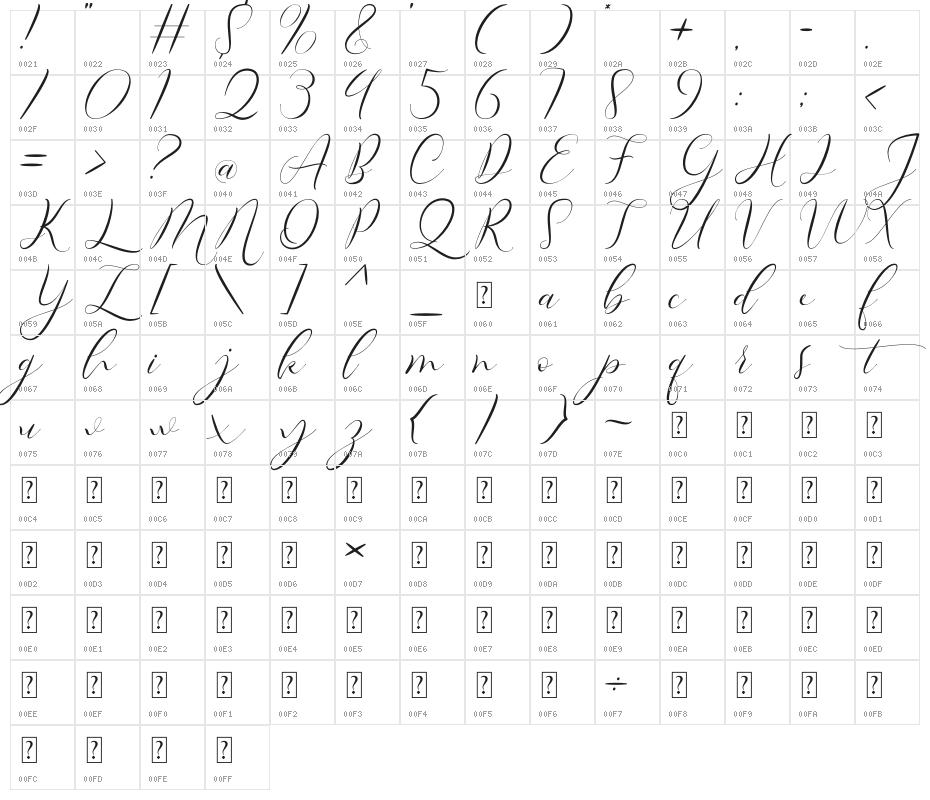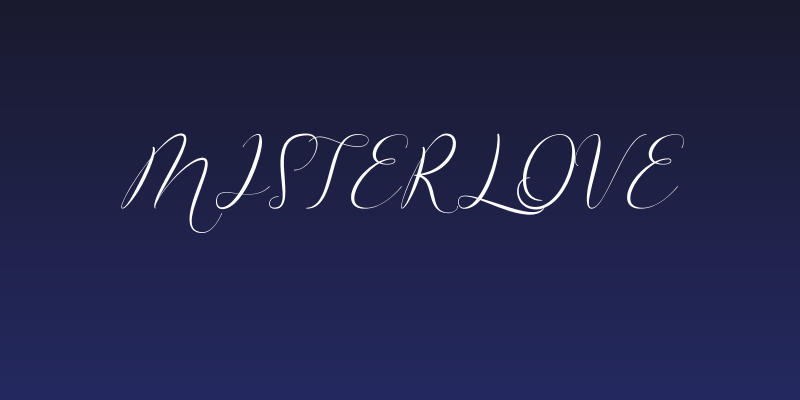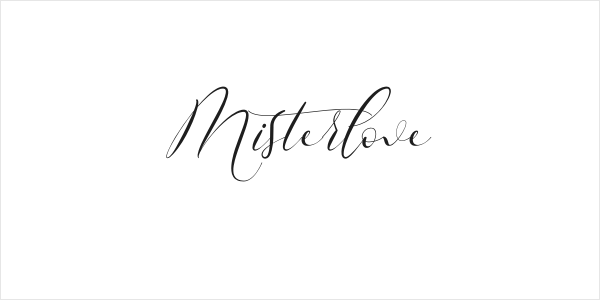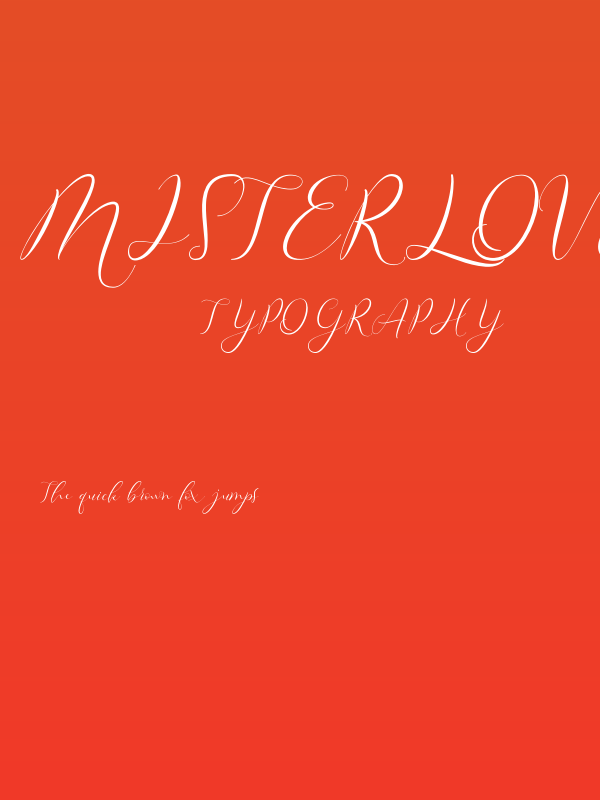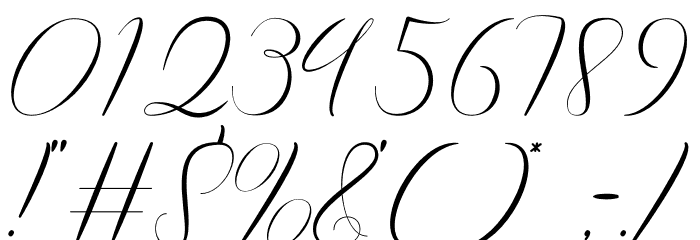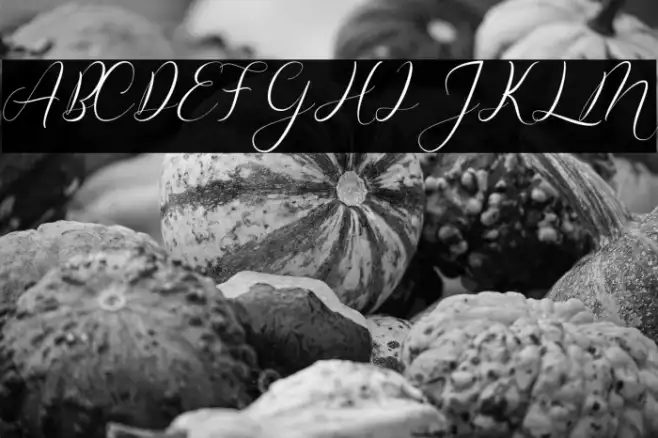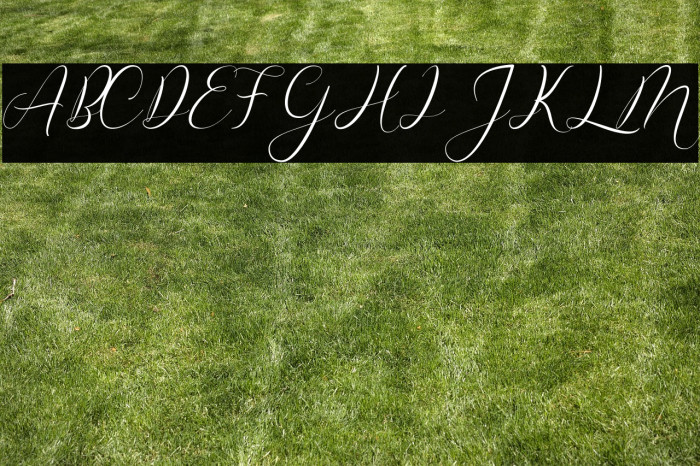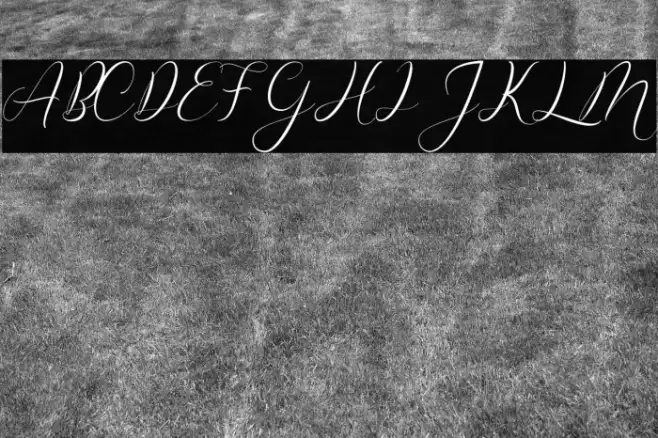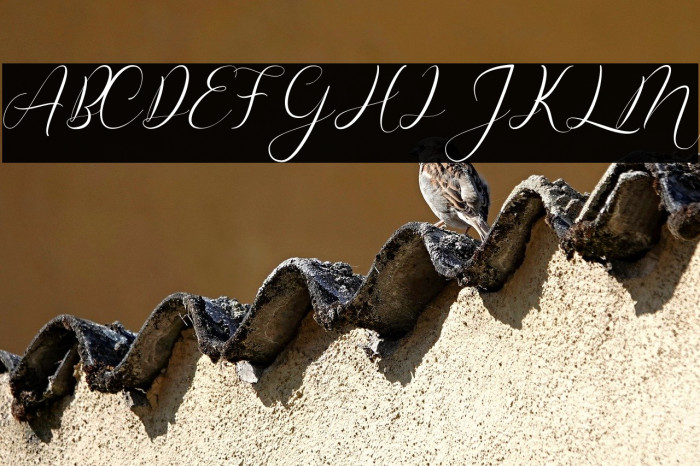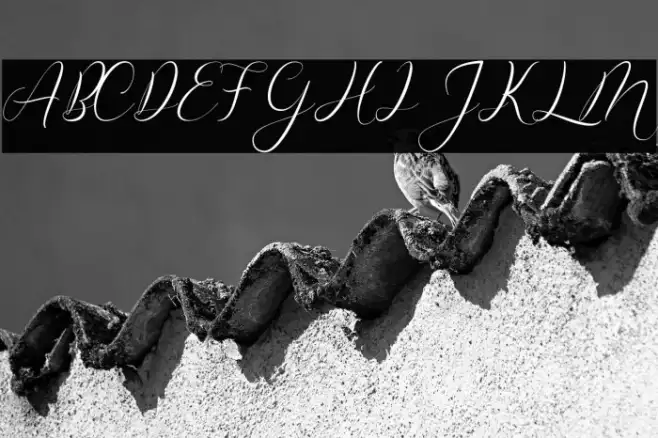
Misterlove Font
Misterlove Description
This elegant script font features flowing, interconnected letters that exude a sense of sophistication and grace. The uppercase characters are tall and slender, with delicate loops and flourishes that add a touch of whimsy. The lowercase letters are equally graceful, with smooth curves and a consistent slant that enhances readability. The numerals are stylish and maintain the same fluidity as the alphabetic characters. Special characters are thoughtfully designed, integrating seamlessly with the overall aesthetic. This font's thin strokes and high contrast give it a refined, airy appearance, making it ideal for formal invitations, branding, and decorative purposes.